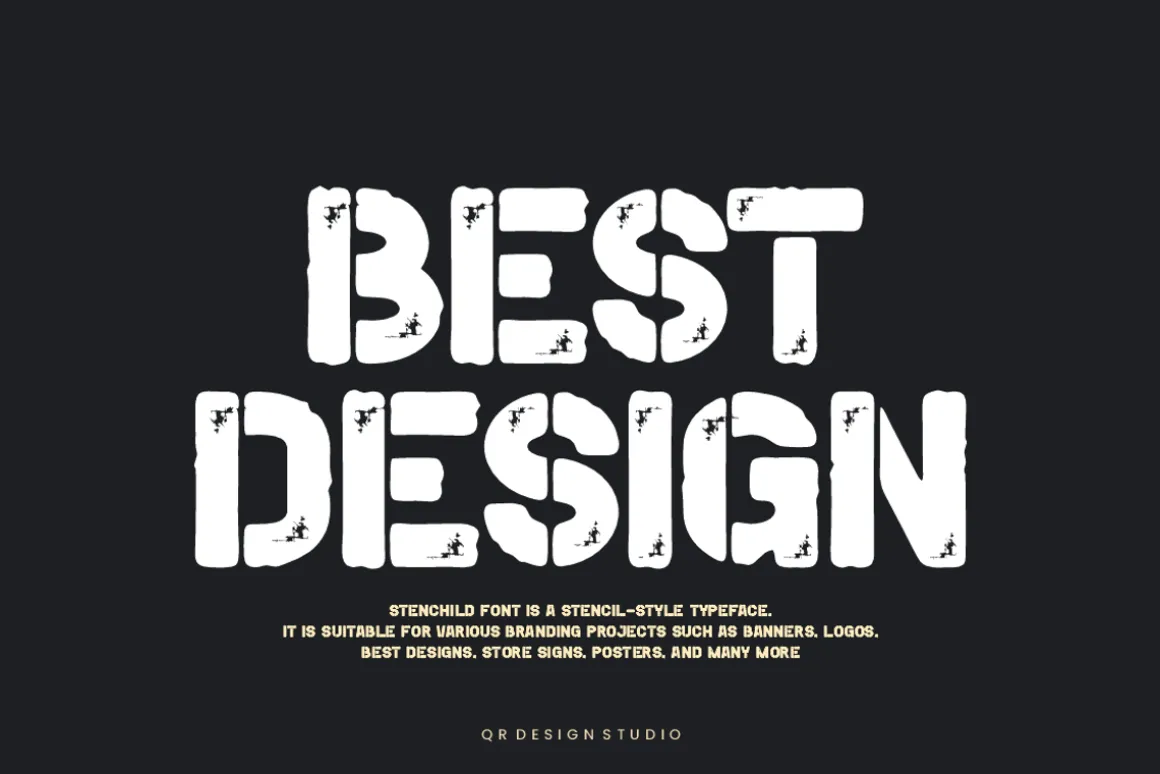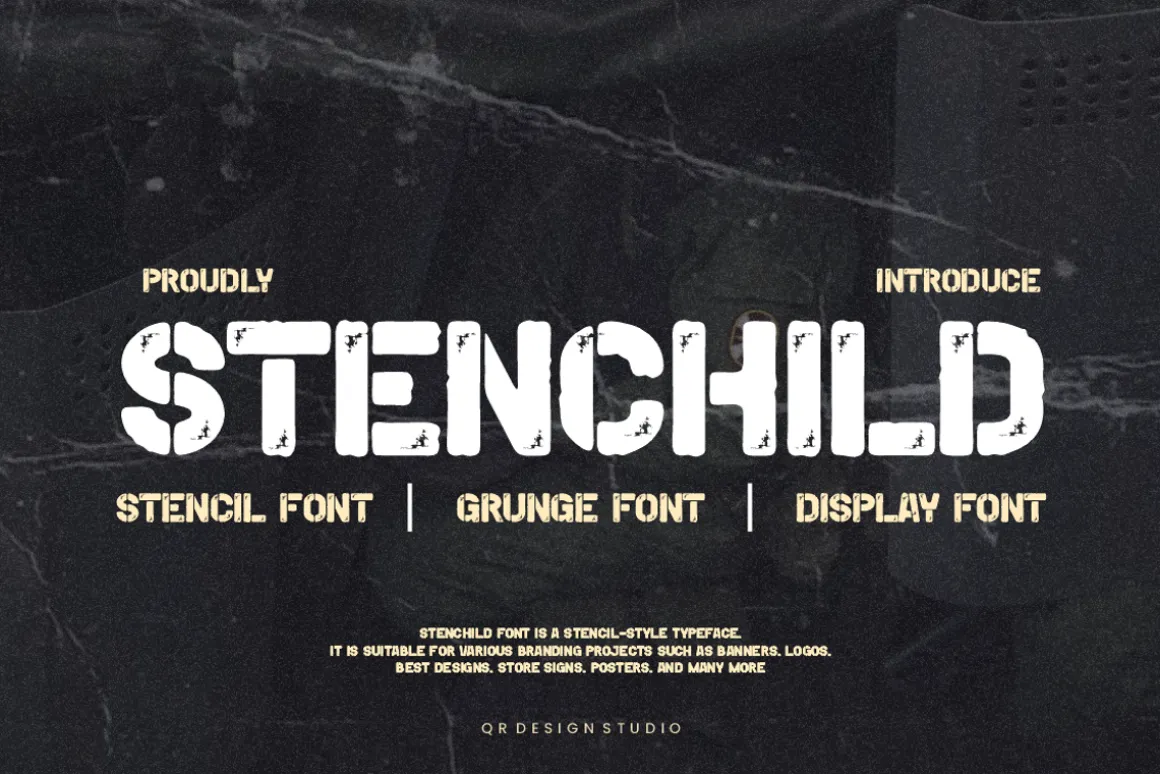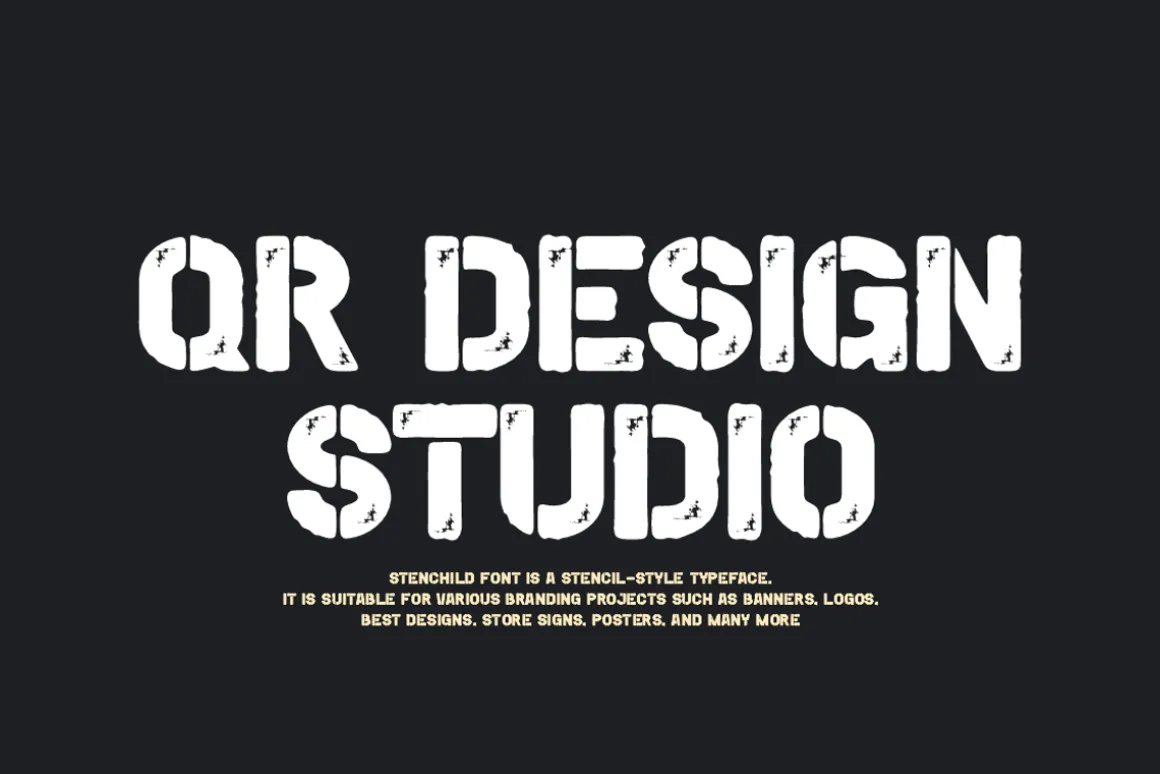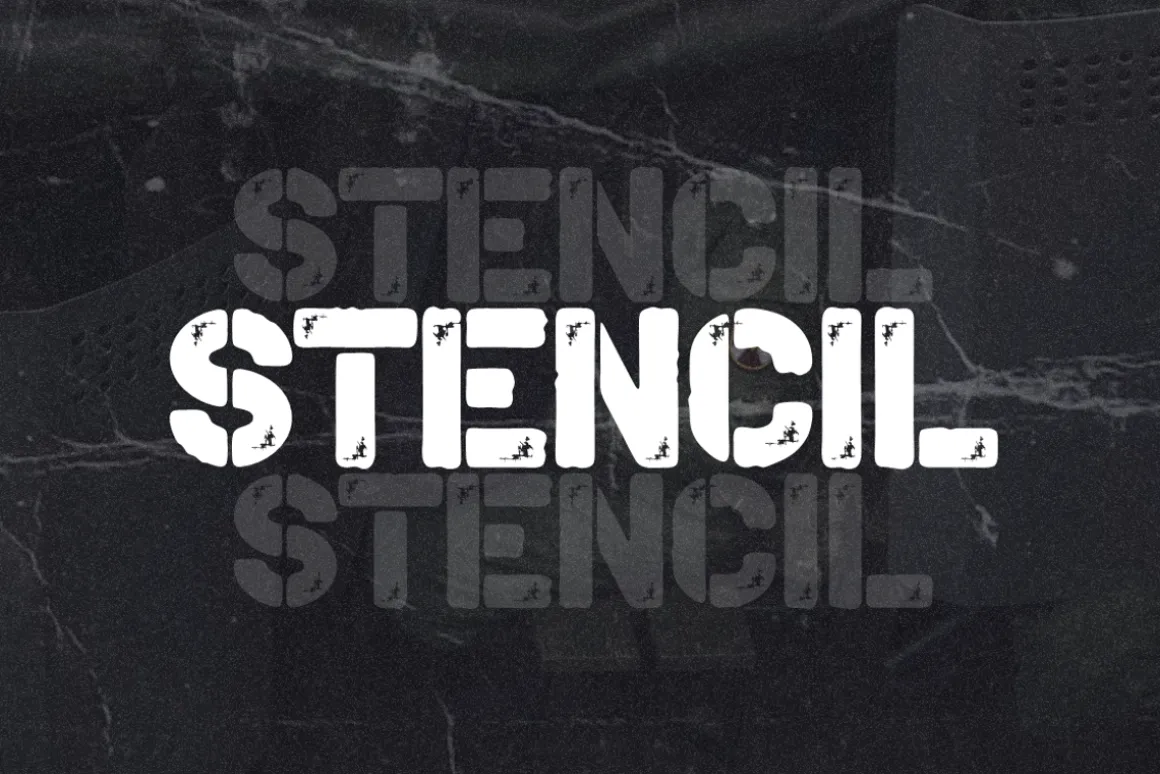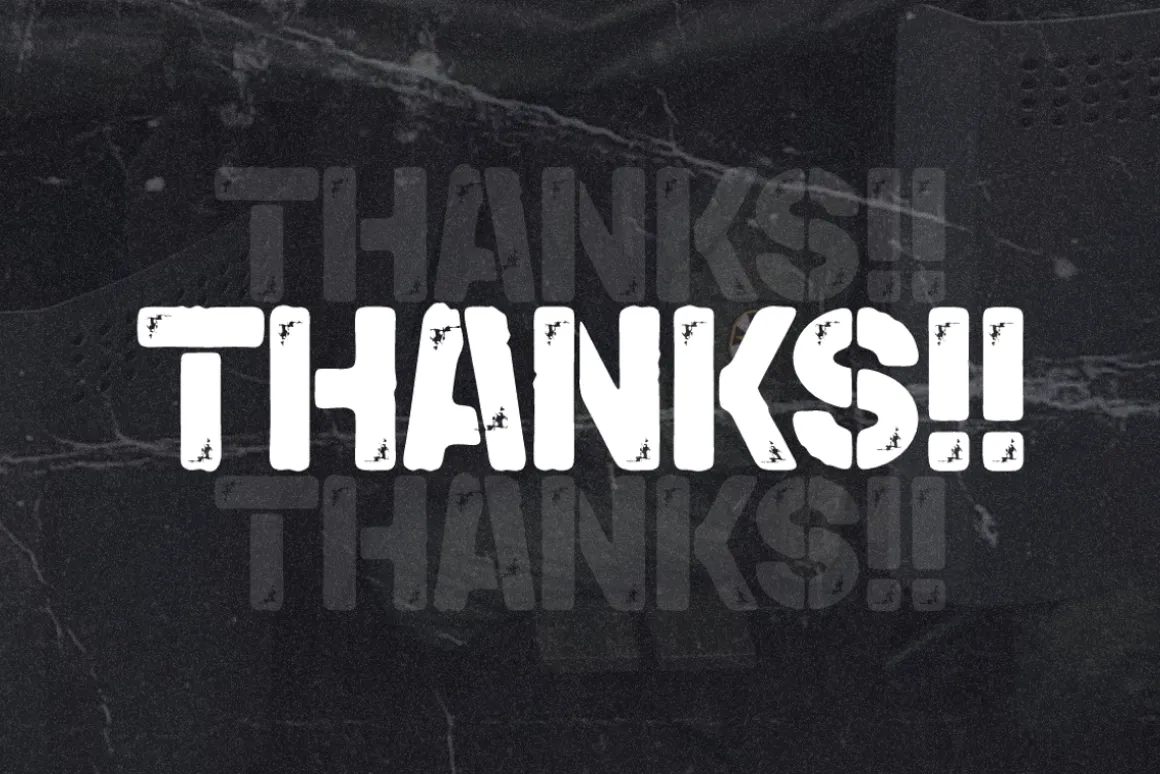
Stenchild Font is a stencil and authentic display typeface. It’s perfect for various branding projects such as logos, poster designs, and more. This font stands out beautifully in a wide range of contexts. Included + Stenchild.OTF + Stenchild.TTF + Stenchild.WOFF